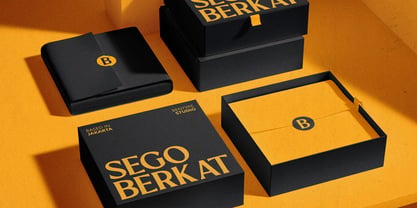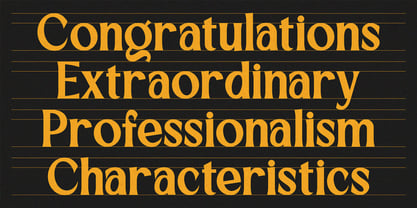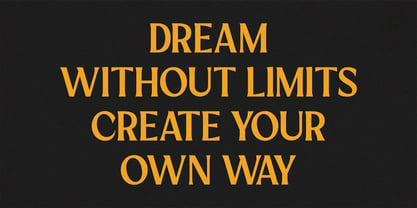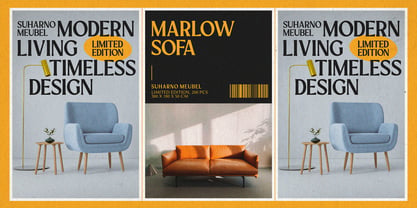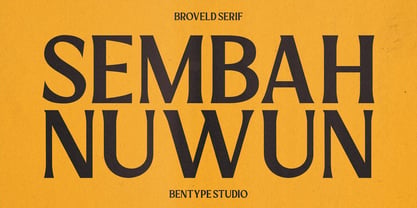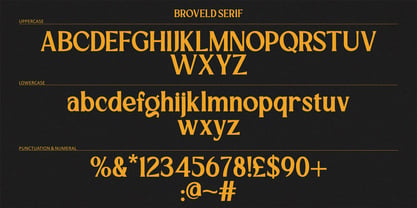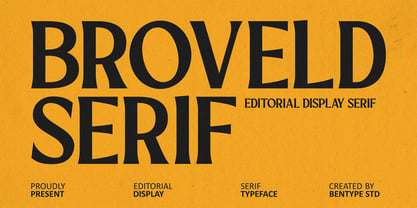
Broveld
by Bentype
The Broveld Font Family was designed by Muhammad Farkhan and published by Bentype. Broveld contains 1 styles. More about this family
Brov​​eld Serif – Editorial Display Serif
Brov​​eld Serif is a sophisticated high-contrast serif typeface designed to bring elegance, drama, and a refined editorial character to your designs. Its sharp serifs, striking contrast, and distinctive letterforms create a luxurious yet contemporary visual impression.
With its bold presence and graceful curves, Brov​​eld Serif works beautifully for fashion branding, editorial layouts, luxury packaging, magazine covers, posters, invitations, logos, and sophisticated advertising.
Perfect for:
• Fashion & beauty branding
• Luxury logos & identity
• Editorial & magazine design
• Wedding invitations & stationery
• Packaging & product labels
• Posters & headlines
• Social media graphics
• Boutique and lifestyle branding
Designers: Muhammad Farkhan
Foundry: Bentype